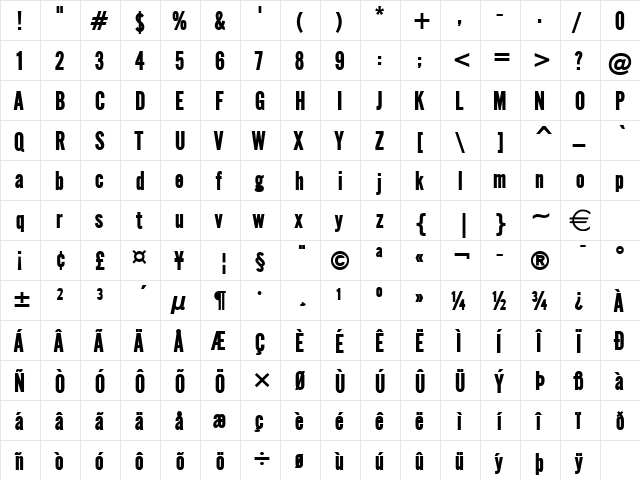
EngGothic Bold
Design Context for EngGothic Typeface
EngGothic has the quiet confidence of well-executed sans-serif typography: versatile, unobtrusive, and dependable at any size. Its bold stroke weight gives it real presence on the page.
Well-suited to navigation labels, product packaging, and anywhere legibility at scale is essential.
Font Pairing: Use EngGothic for headlines alongside a lighter-weight sans or serif for body copy to establish clear visual hierarchy.
Pro Tip: Use EngGothic for UI labels, navigation, and short-form body copy where clean legibility is the priority.